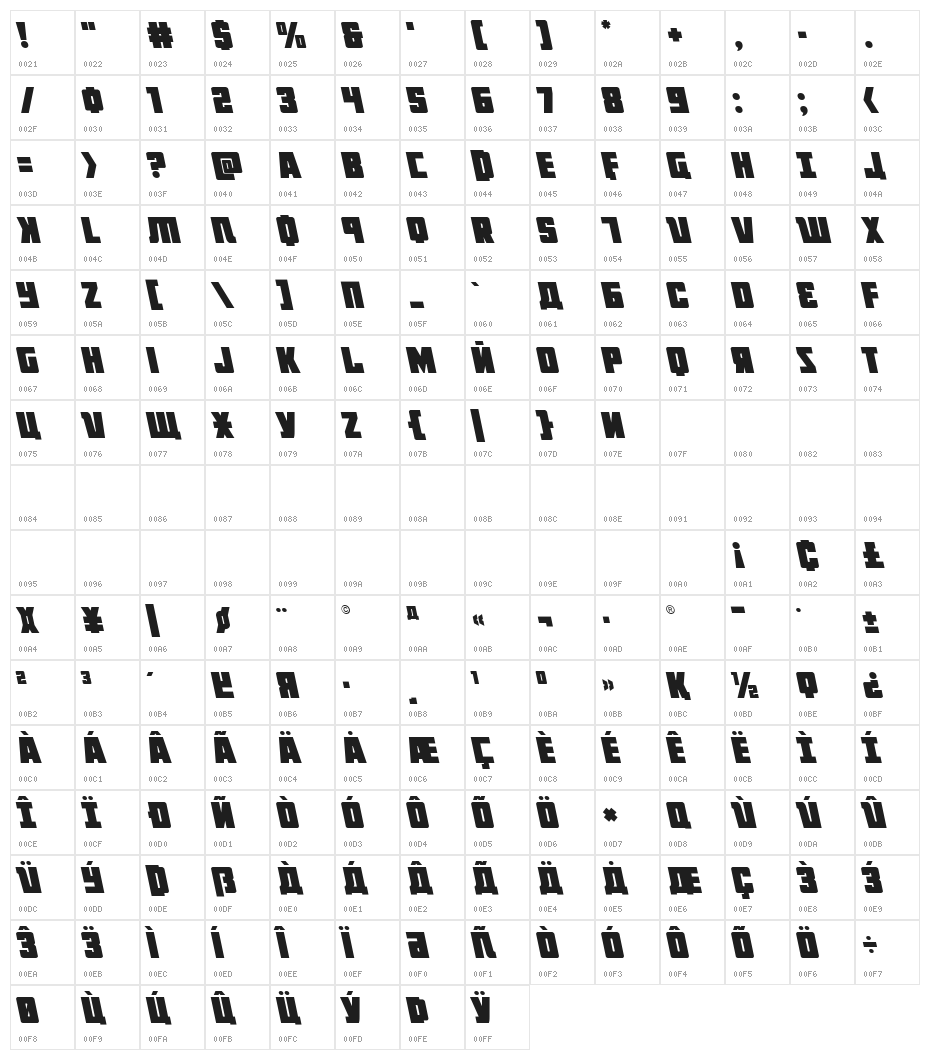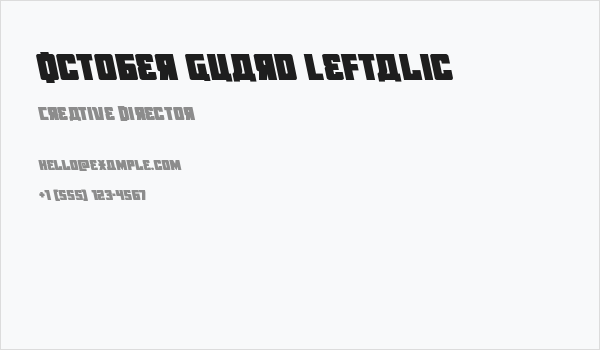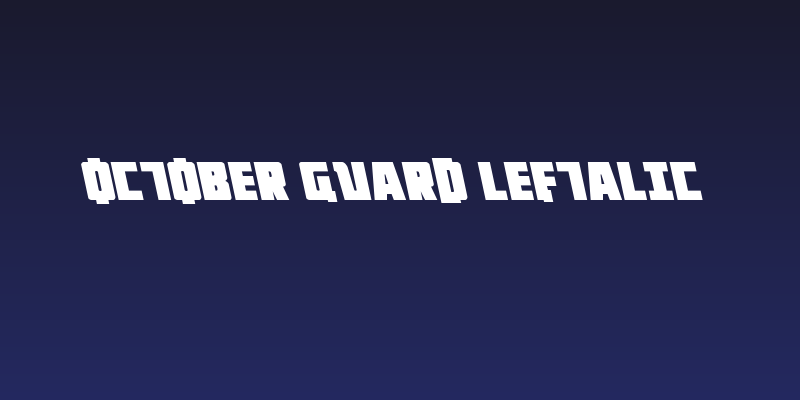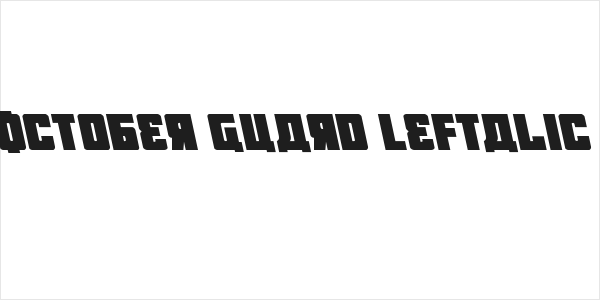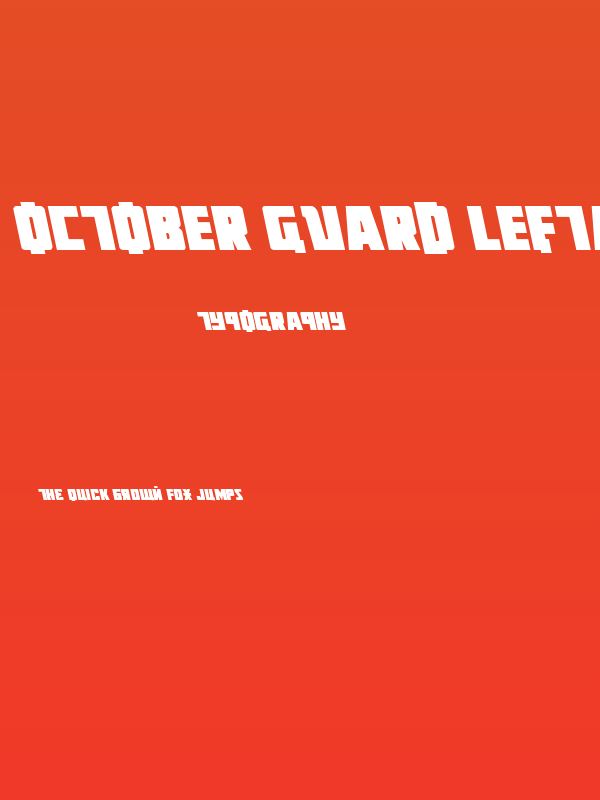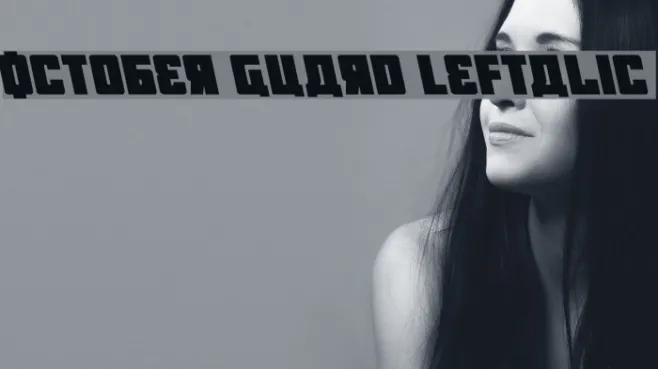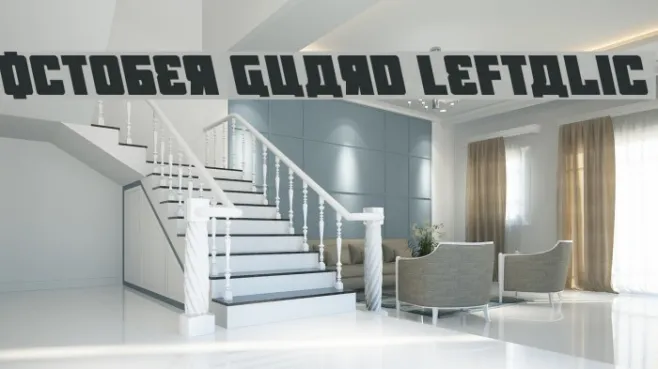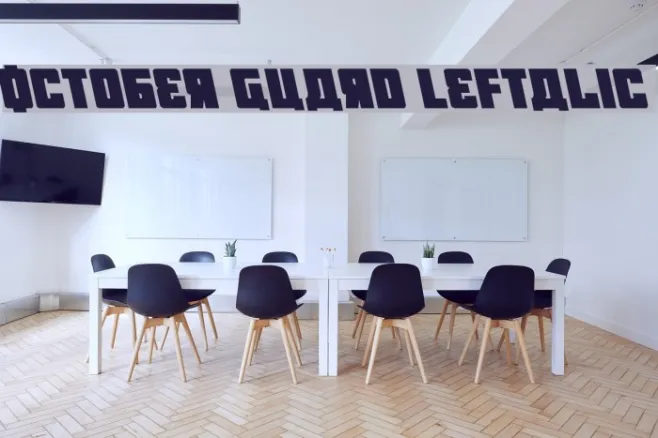
October Guard Leftalic Font
October Guard Leftalic Description
This bold and dynamic font features a strong, angular design with a distinct slant to the left, giving it a sense of motion and energy. The characters are blocky and robust, with a modern, industrial feel. The uppercase letters are particularly striking, with sharp edges and a commanding presence. The numbers and special characters maintain the same boldness and angularity, ensuring consistency throughout the typeface. This font is ideal for projects that require a bold statement or a sense of urgency and strength.